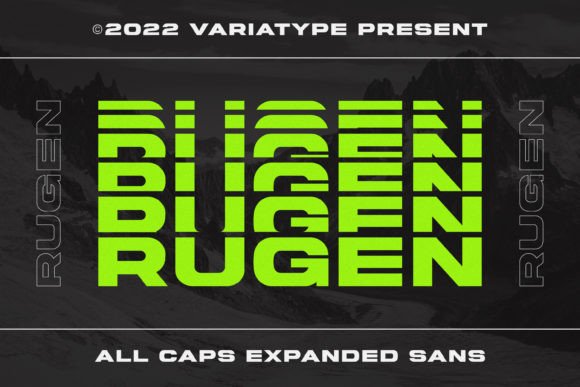
This exclusive and exquisite sans-serif font is perfect for making a bold statement. Its sleek lines and subtle curves make it modern and captivating, while its high-contrast edges add a touch of sophistication. This font is PUA encoded which means you can access all of the amazing glyphs and ligatures with ease!